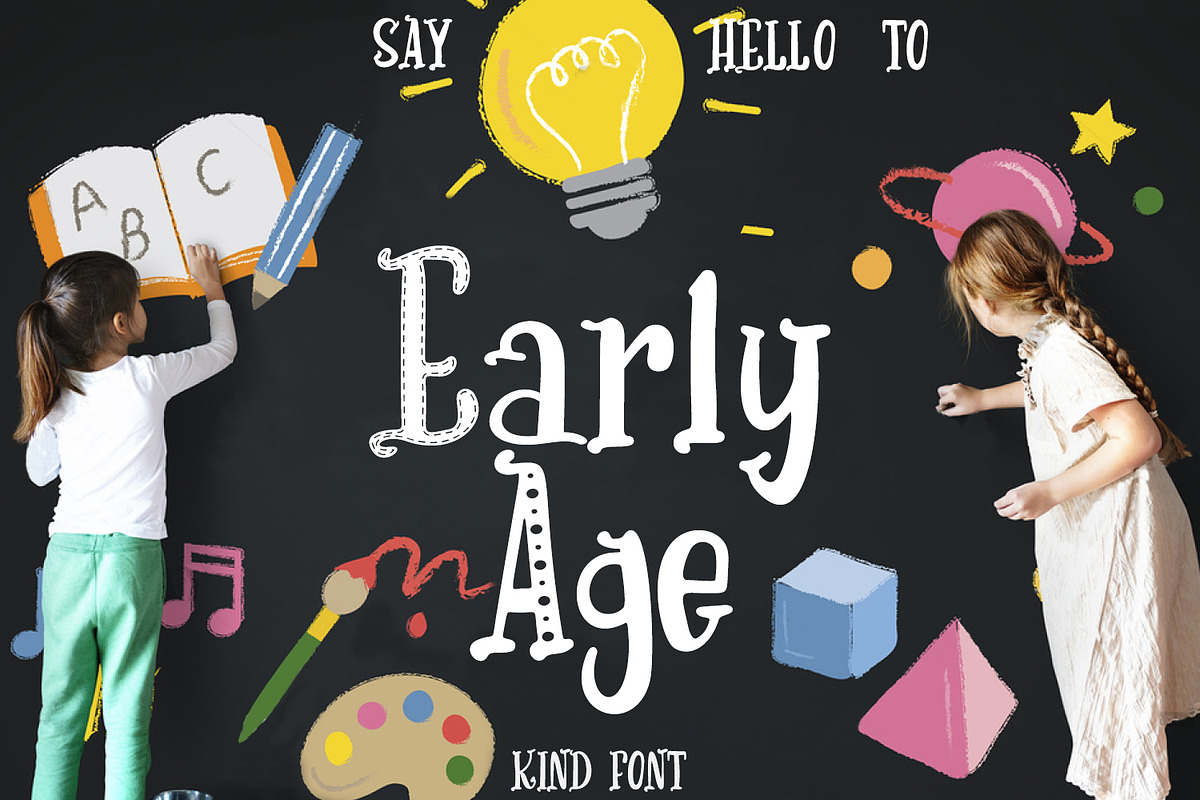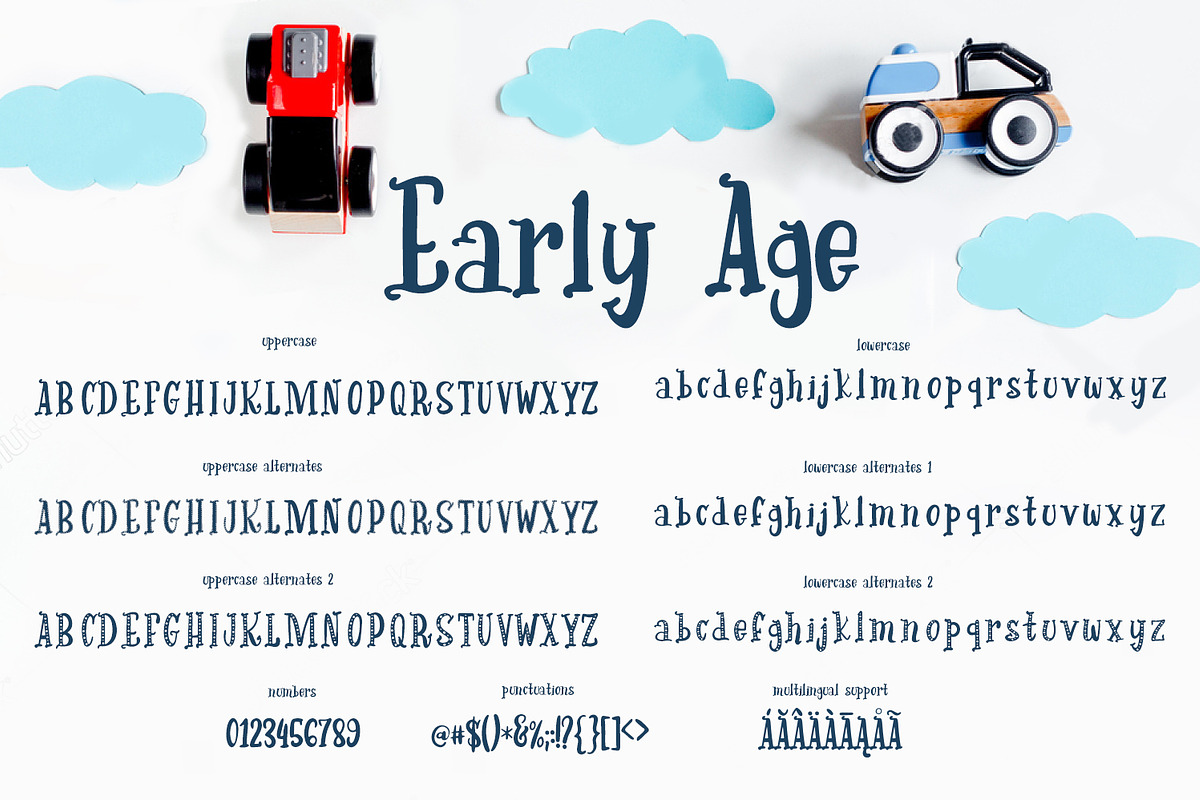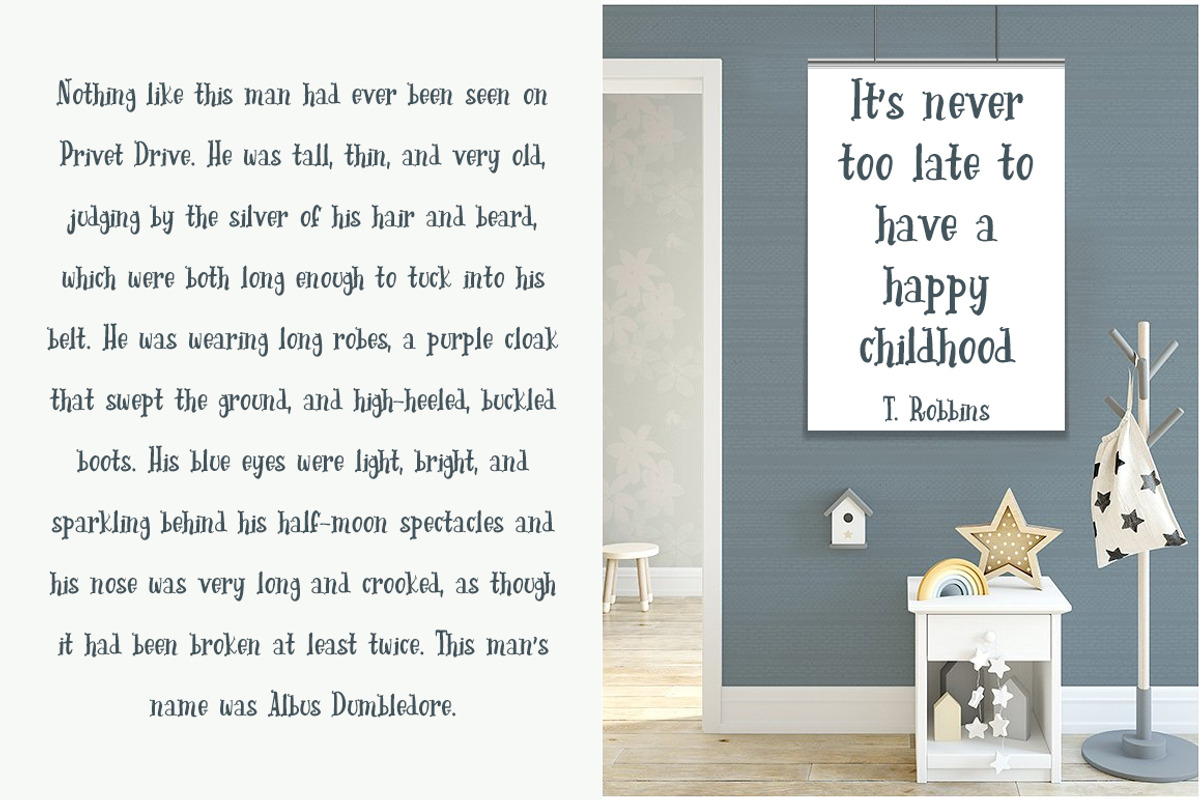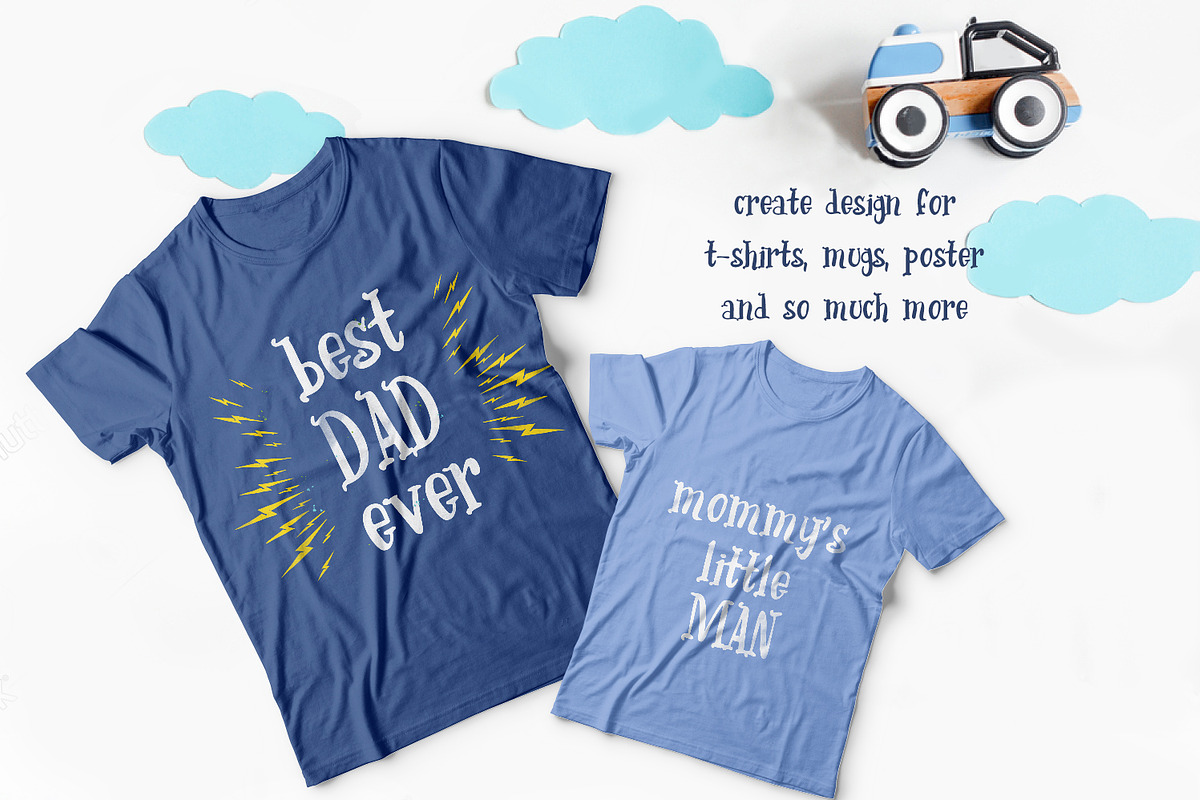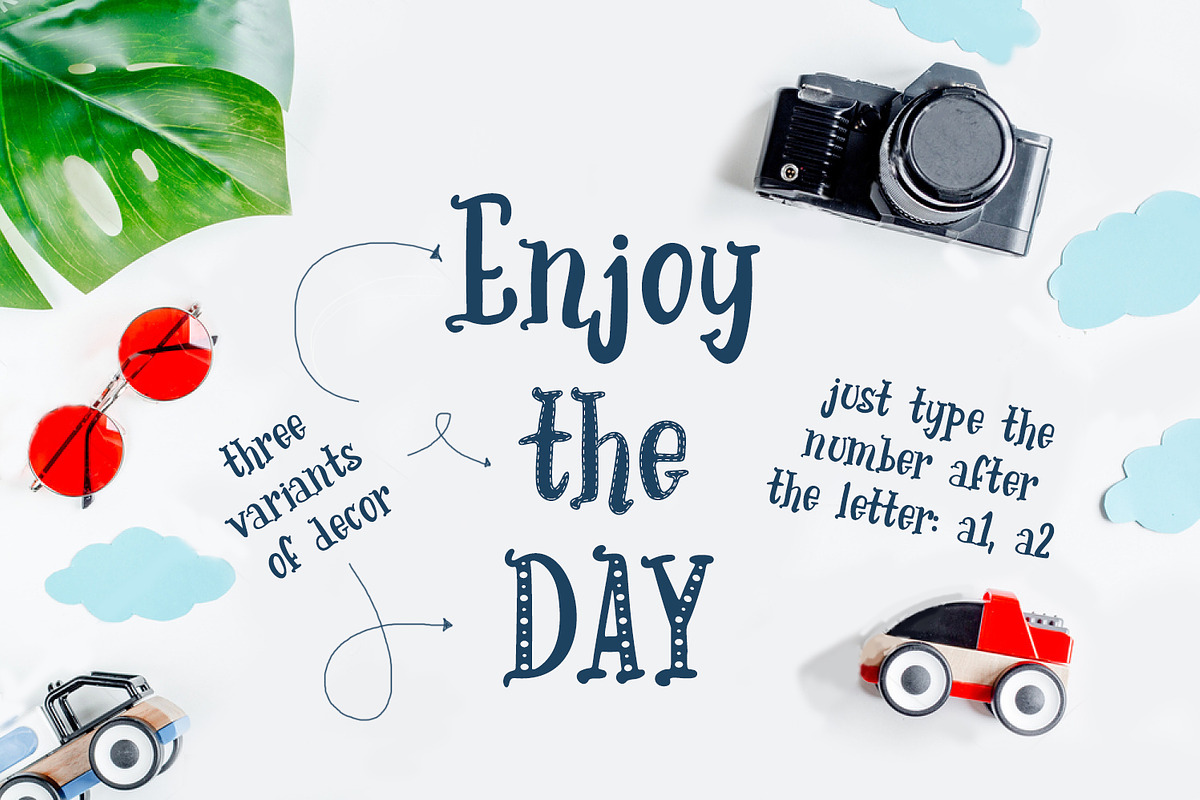
Early Age-kind font
I'm happy to introduce you a EarlyAge handdrawn font!
This font can be used easily and simply because there are a lot of features in it to contain a complete set of letters lower and uppercase letters, assorted punctuation, numbers, and multilingual support.These characters are accessible via software with a glyphs panel.
Foreign Languages Support
This is the perfect font that is suitable for all your funny designs. Simply EarlyAge makes custom lettering a dream thanks to all the little extra decorative options you can include for a pretty and unique customisation.
Perfect for greetings, branding, prints, invitations, and crafting, print, t-shirt design, to personalised logos, handwritten quotes and so much more!